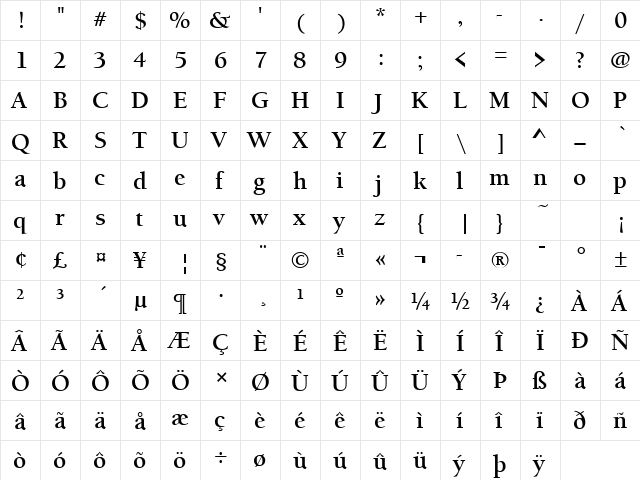
UniversityOldStyle Bold
Design Context for UniversityOldStyle Typeface
UniversityOldStyle brings classic typographic sensibility to the table — its serifs and measured letterforms reflect centuries of print heritage. The heavy weight commands attention and anchors typographic hierarchies.
Pro Tip: Set UniversityOldStyle with slightly loose tracking in headlines to let each letterform's detail read clearly at display sizes.